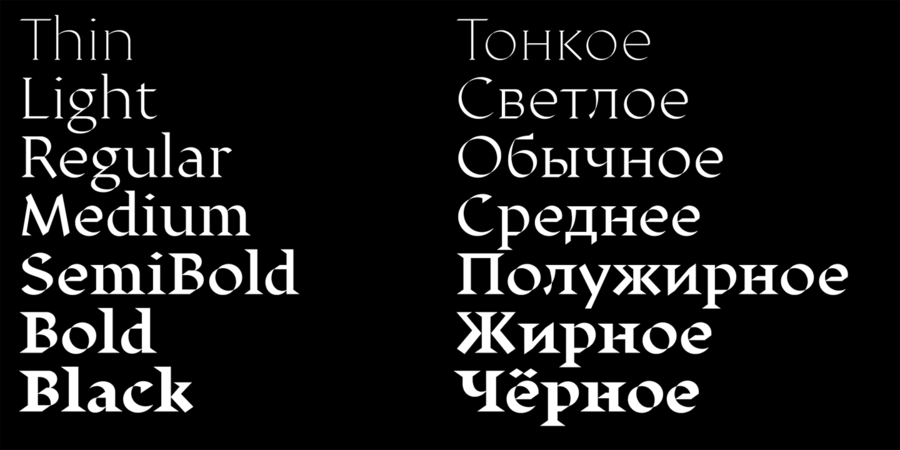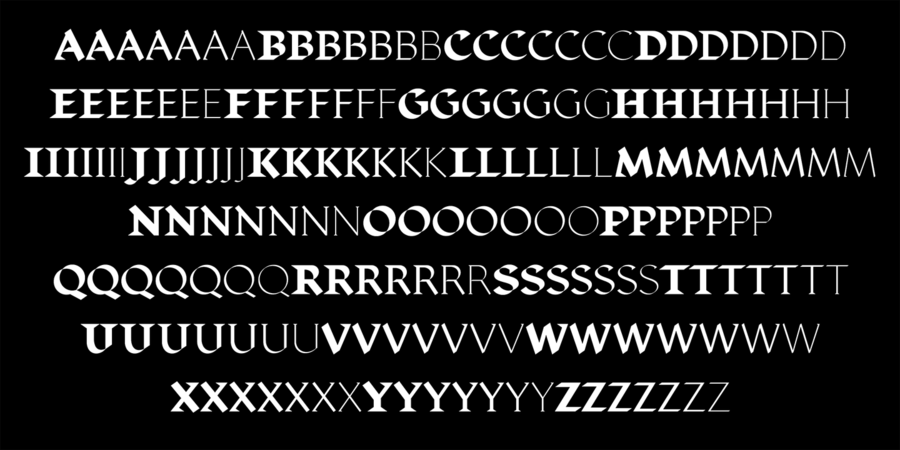
About Displace Serif is a continuation of Displace font. Adding serifs allows you to see the font in a new way. There is a more pronounced charm of Italian monumental fonts, but in an expressive way. The appearance of the serifs allowed the font to move to the antiqua class, but this is purely a formal matter. The proportion of serifs changes markedly from weight to weight, allowing the font to retain its decorative character. In the Light drawing the serifs are barely visible and delicate, while in the Black they are in superposition. The font is catchy, noticeable, which makes it suitable for graphics requiring instantaneous spectator emotions. Displace Serif is suitable for editorial design, as despite the modern image it retains the classic concept. The typeface was designed by Denis Serebryakov in 2019.
Associations for font family Displace SerifTypeface personality and character:
thin, original, distinctive, sharp, cutting, crisp, urban, unusual, proud, dynamic, artistic, expensive, technically, fragile, flat, experimental, silver, refined, fashionable, modern, voiced, musical, glass, accurate, noble, beautiful, masterful, educated, transparent, throbbing, flickering, solid, stable, expressive, elite, high-quality, cultural, aesthetically beautiful, luxurious, precious, select, rich, logical, cold, serious, authoritative, convincing, architectural, self-assured, esthetic, pretentious, reputable, rigid, iron, steel, important, extravagant, ambitious, heavy, strong, splashy, notable, bright, active, rude